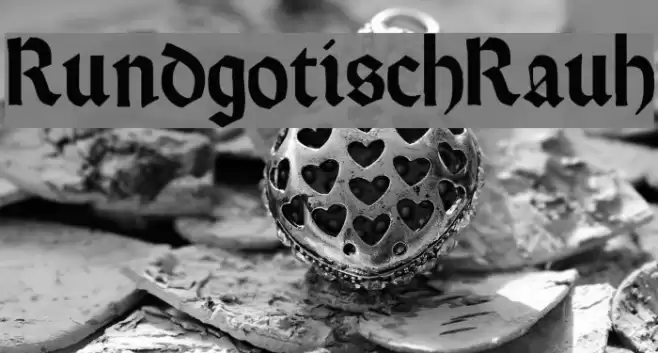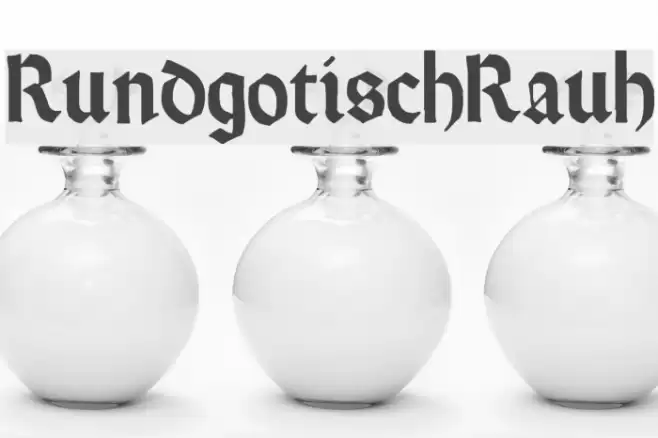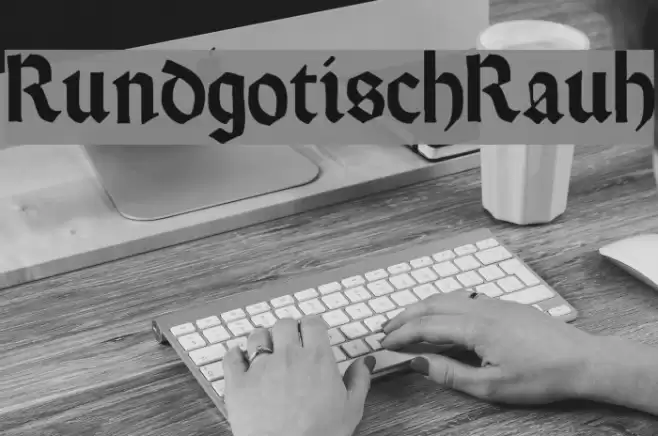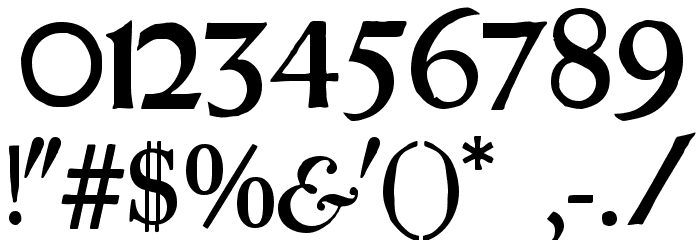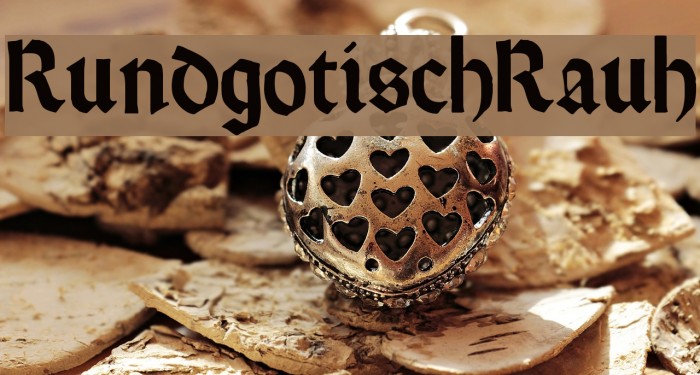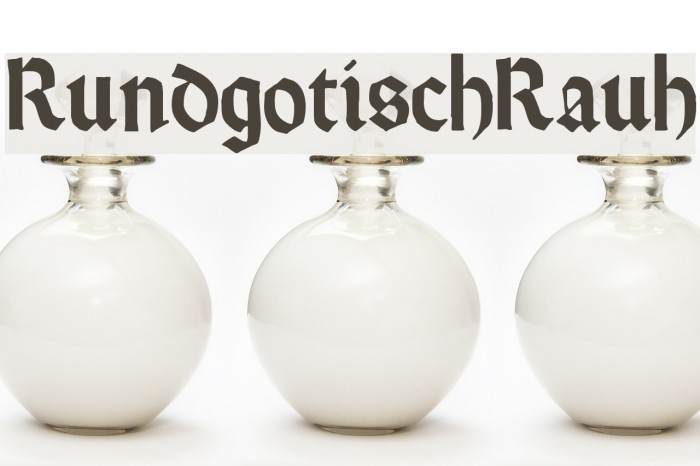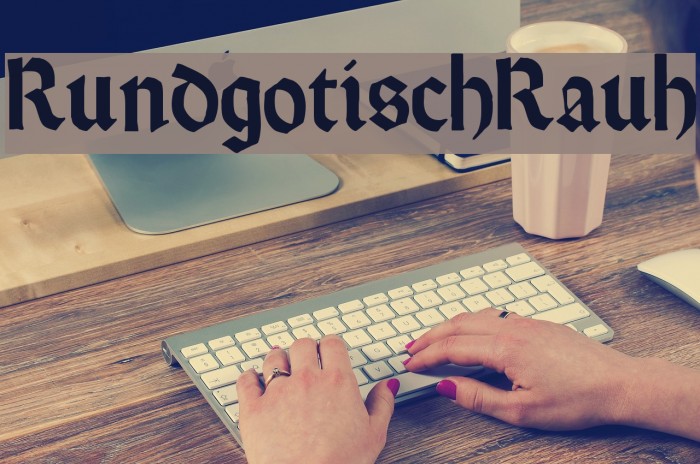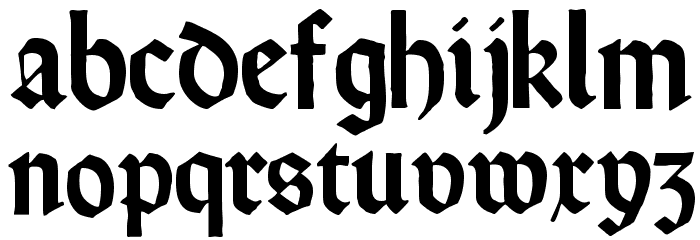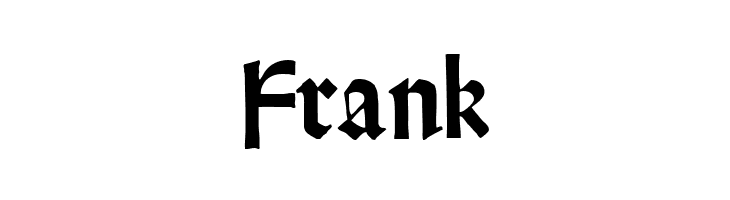
RundgotischRauh Font
RundgotischRauh Description
This font features a distinct Gothic style with sharp, angular lines and a bold presence. The uppercase letters are characterized by their strong vertical strokes and pointed serifs, giving them a commanding appearance. The lowercase letters maintain the Gothic aesthetic with a slightly more rounded form, yet they still possess the same sharp edges and dramatic flair. The numerals are consistent with the overall style, offering a bold and striking look. Special characters are designed to complement the font's medieval-inspired theme, making it suitable for projects that require a historical or traditional touch.
A bold Gothic font with sharp, angular lines and a medieval flair from Uncategorized fonts.
- Proposed Projects: Ideal for historical documents, fantasy-themed designs, book covers, and branding that requires a traditional or medieval touch.
- Overall Style: Vintage
- Use Case: Logos, Headlines, Decorative text